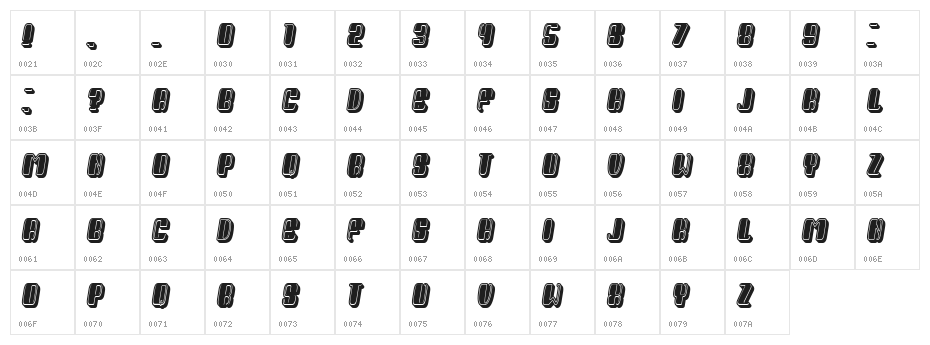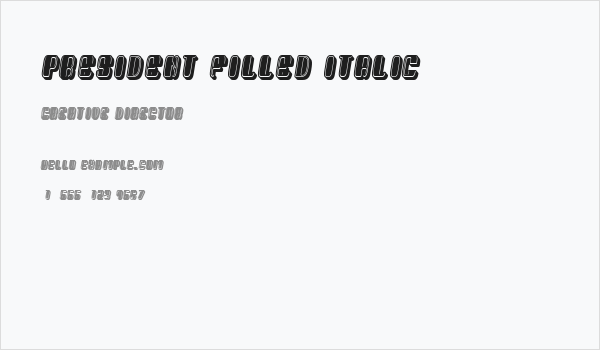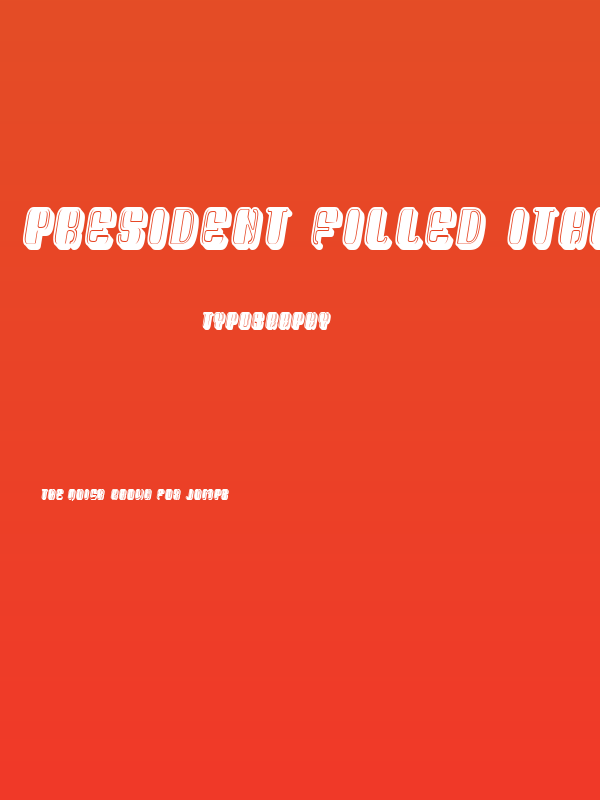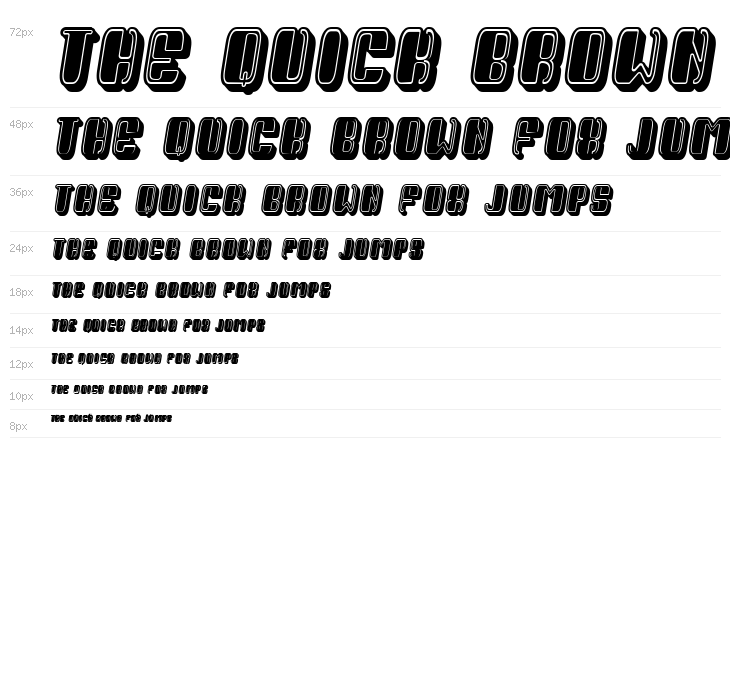
President Filled Italic Font
President Filled Italic Description
This font features a bold, filled design with a distinct italic slant, giving it a dynamic and modern appearance. The characters are outlined with a thick border, creating a striking contrast between the filled interior and the outer edges. The uppercase letters are uniformly styled, maintaining a consistent height and width, while the numbers and special characters follow the same bold and filled aesthetic. The overall look is both eye-catching and versatile, suitable for a variety of design applications where a strong visual impact is desired.
| Proposed Projects | Ideal for posters, headlines, branding, and any project requiring a bold statement. |